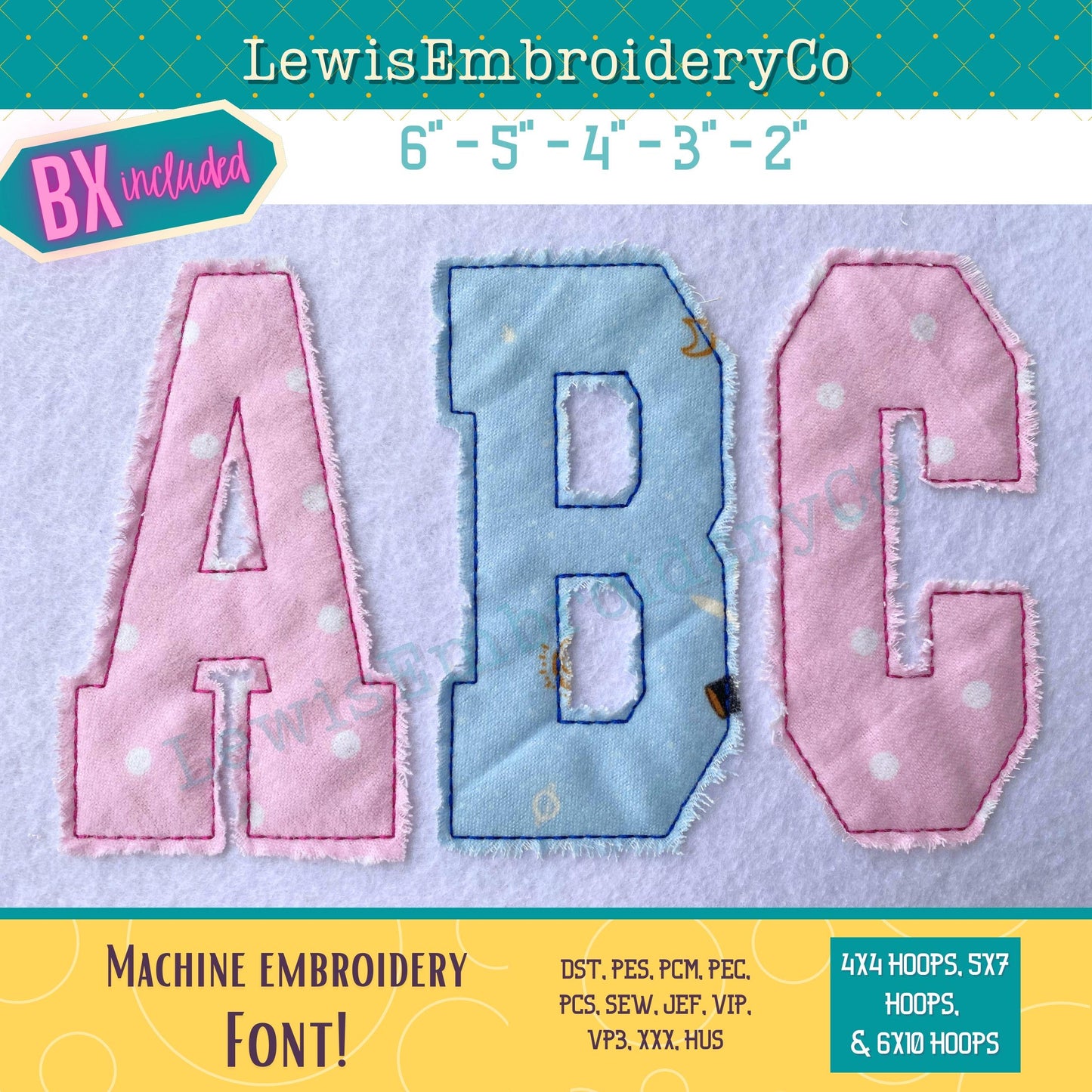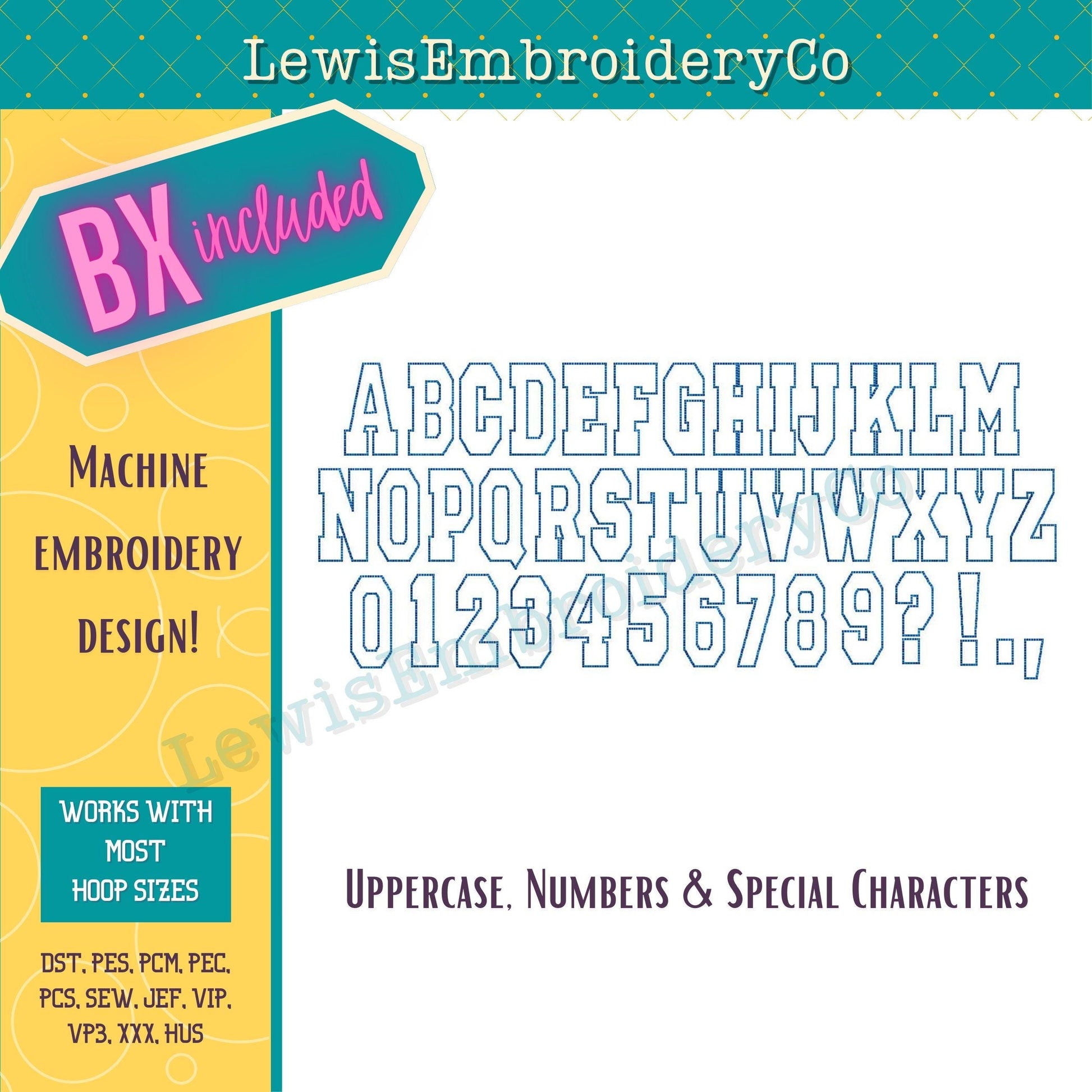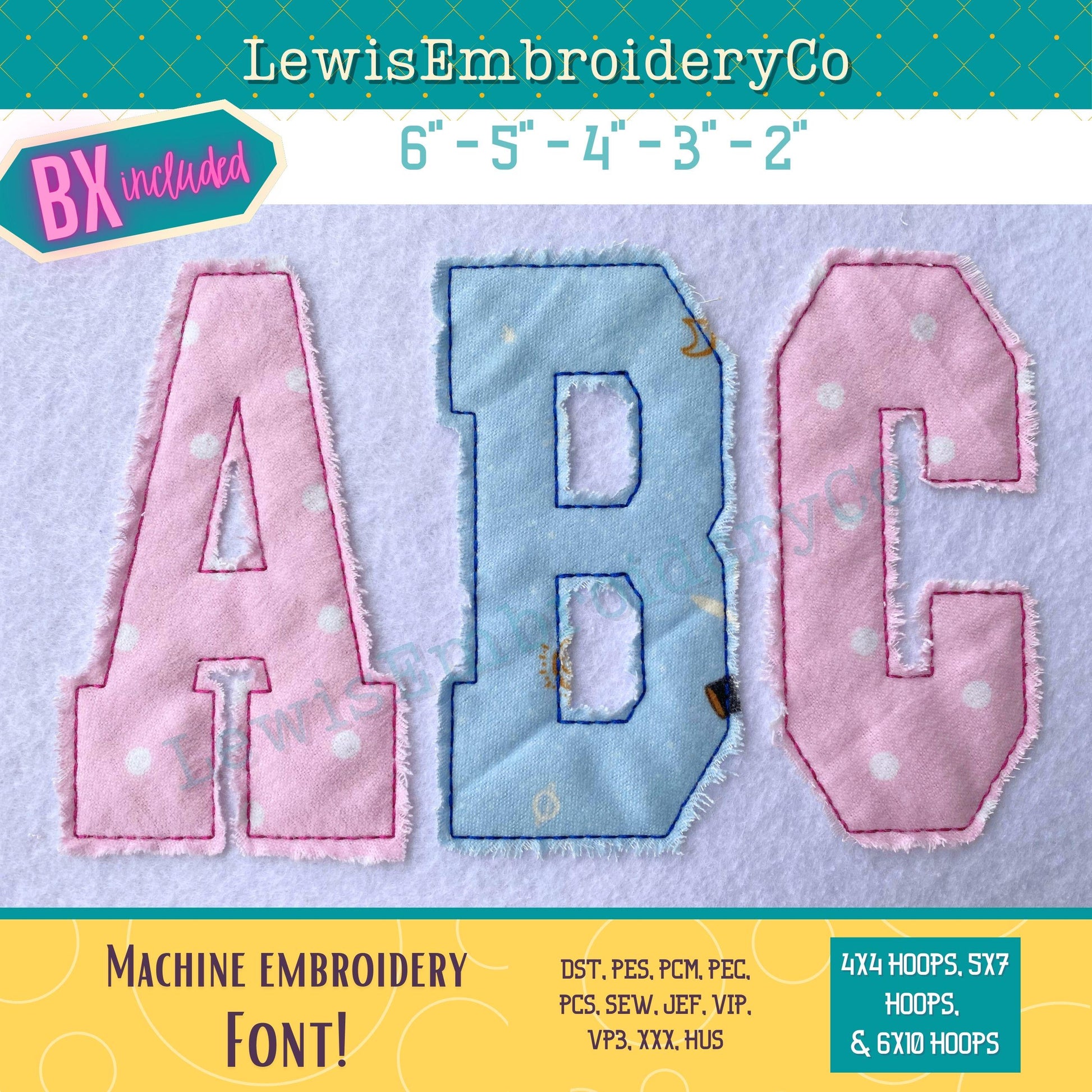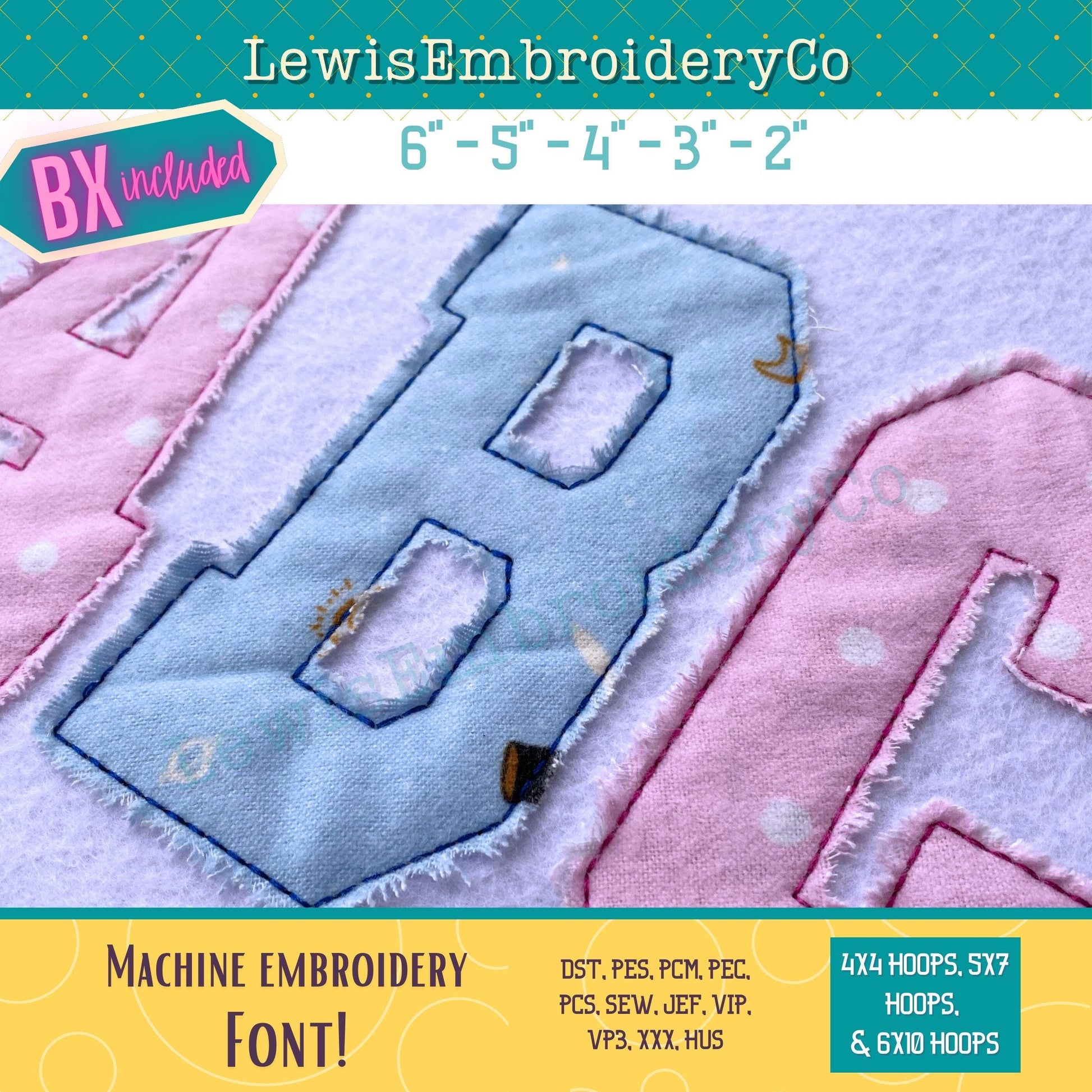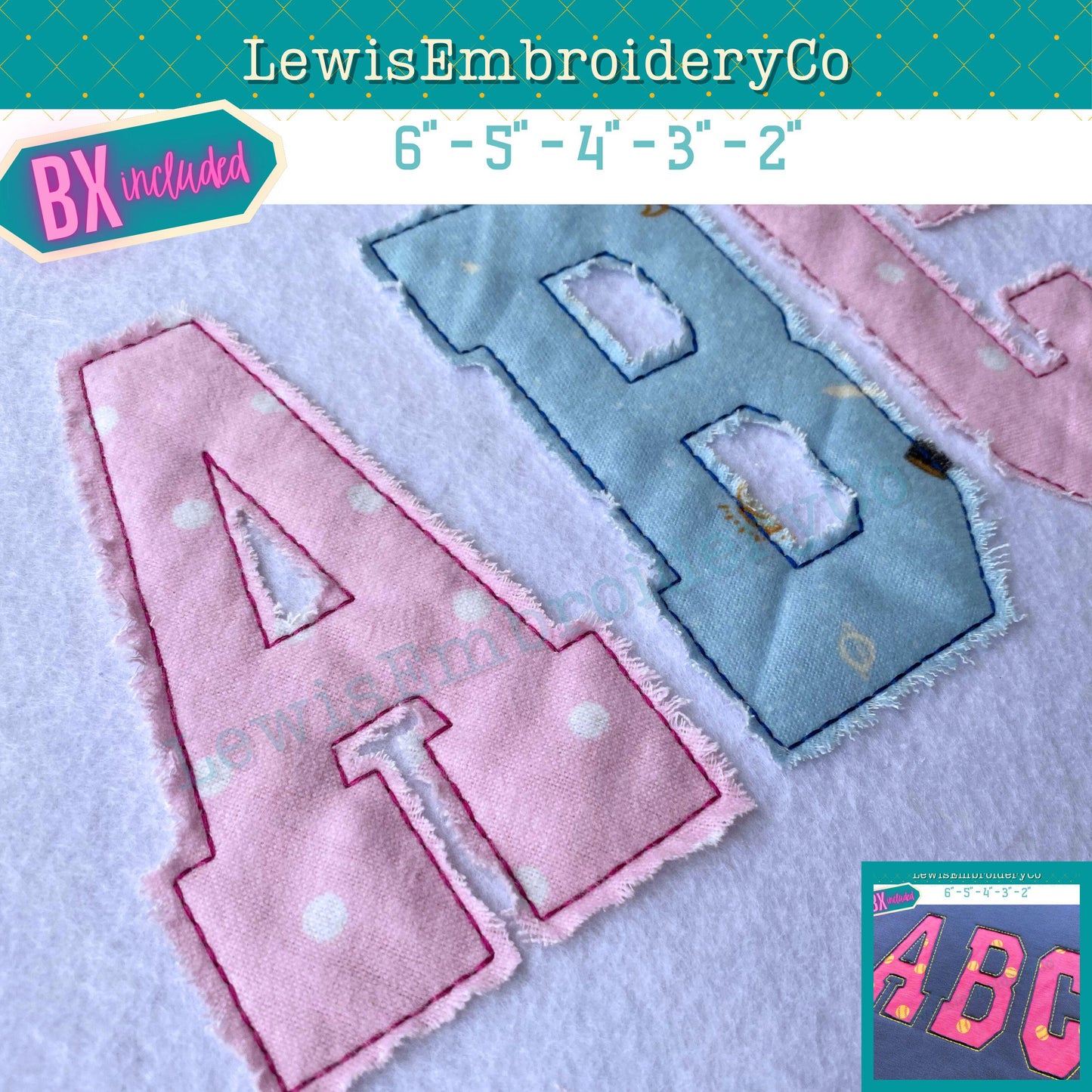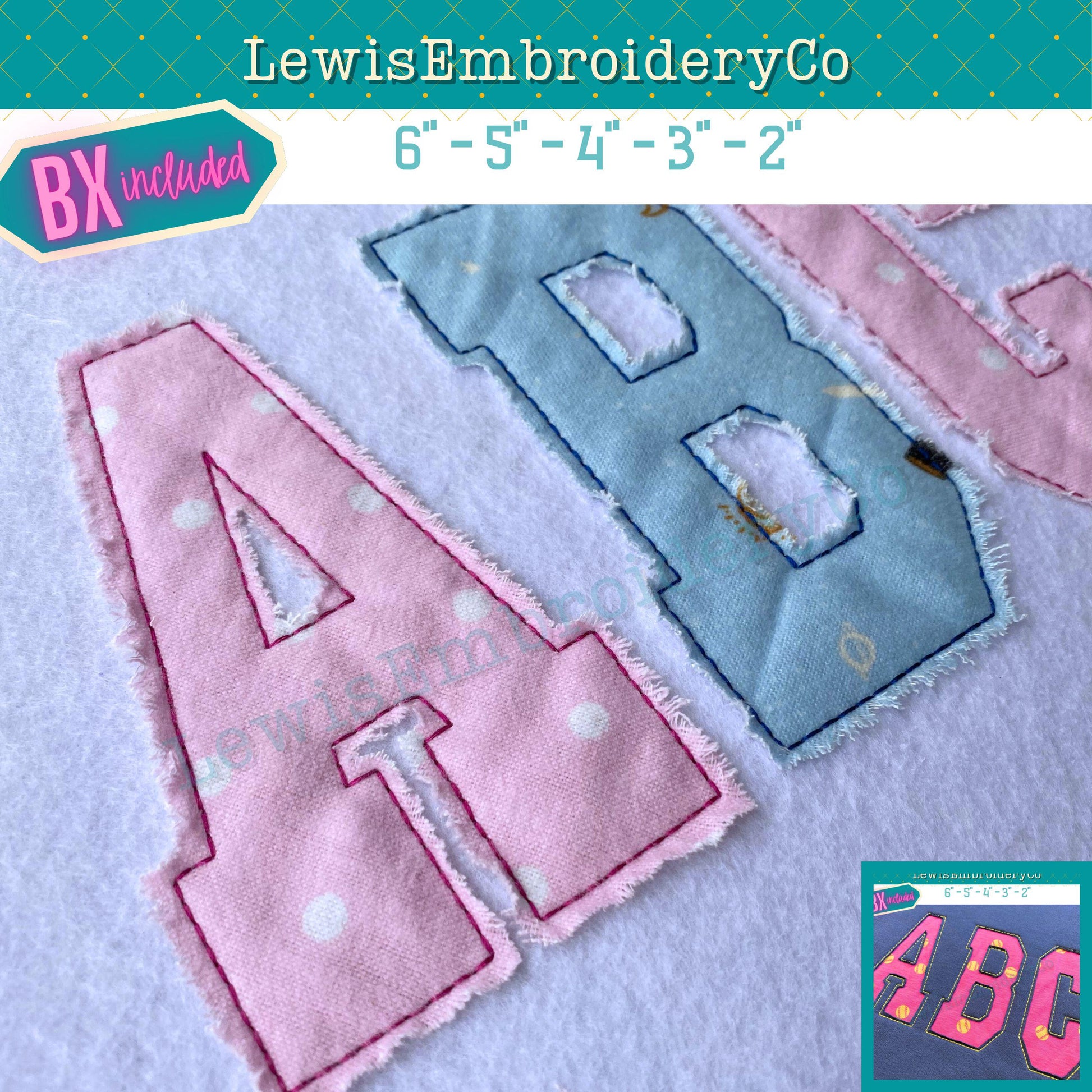
Raggy Edge Applique, Varsity, Machine Embroidery Font - With BX - (PDF Tutorial Included)
Raggy Edge Applique Embroidery Font - Varsity Block Letters - Raw Edge Applique Alphabet - Bean Applique Embroidery Font - Mama Sweatshirt